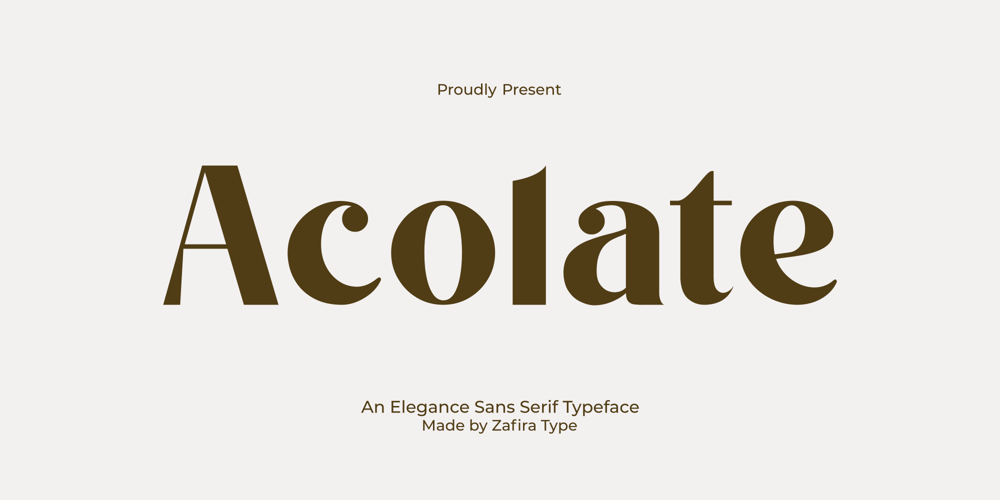
Acolate Font Family was designed by Su Hirno and published by Zafira Type. Acolate contains 1 styles and family package options. Introducing Acolate, an exquisite, contemporary sans-serif font created with meticulous precision to deliver a refined and mesmerizing visual impact. With its amalgam of crisp lines and delicate curves, Acolate caters to an expansive spectrum of design requirements, from crafting compelling logos to generating standout promotional resources. Embodying a harmonious balance of aesthetic allure and practical adaptability, Acolate amplifies the calibre of your creative designs.